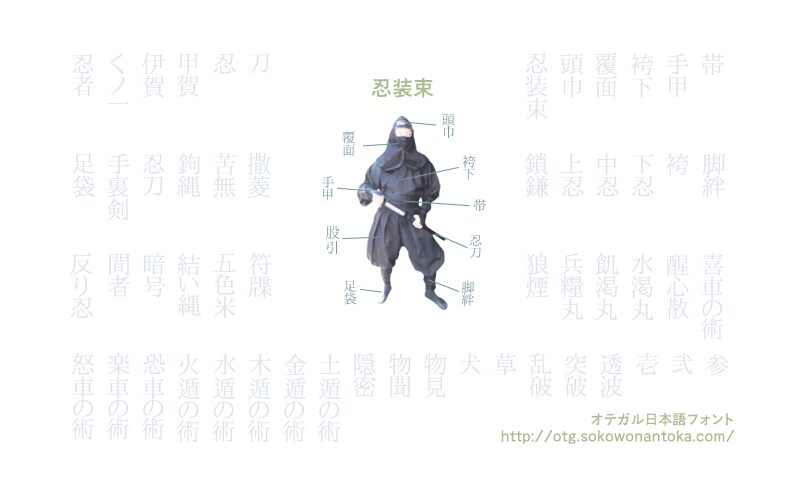
Shinobi by iroha is a free Japanese display font with the structure of traditional Mincho-style lettering. Its tall forms combine strong vertical strokes, fine crosslines, and sharply tapered turns, producing a formal but forceful texture.
The crisp, blade-like details echo ink illustration and suit martial arts posters, game graphics, and historical book publishing. That Japanese print character also makes the font convincing for restaurant branding and cultural event programs, where lettering and imagery can speak in the same register.